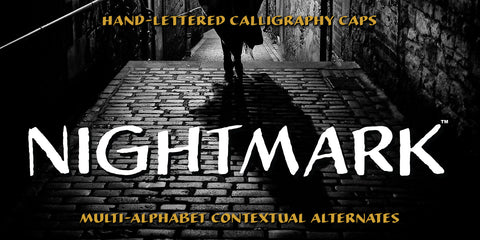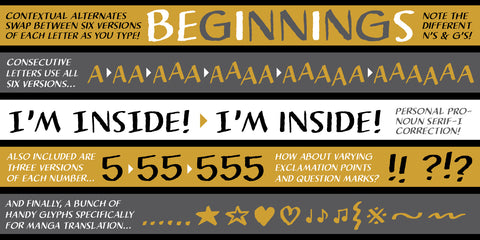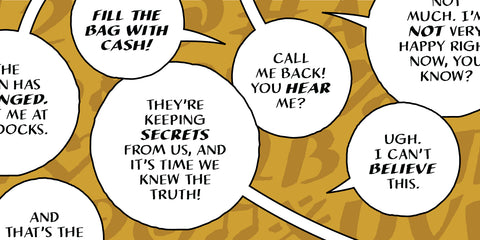
Nightmark
• Includes Manga and European characters
• Contextual alternates create multiple versions of letters,  numbers and punctuation, errant barred-I correction, type up to six consecutive letters have a bouncy baseline.